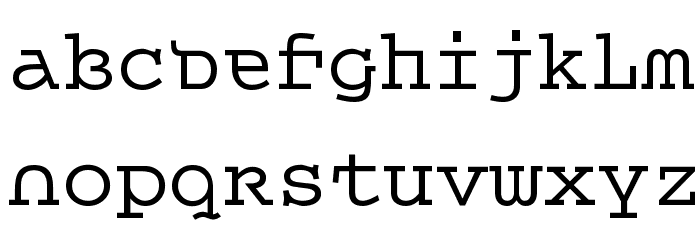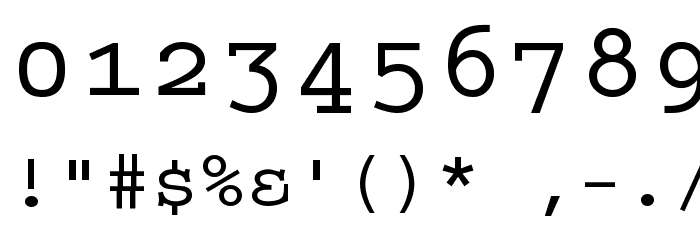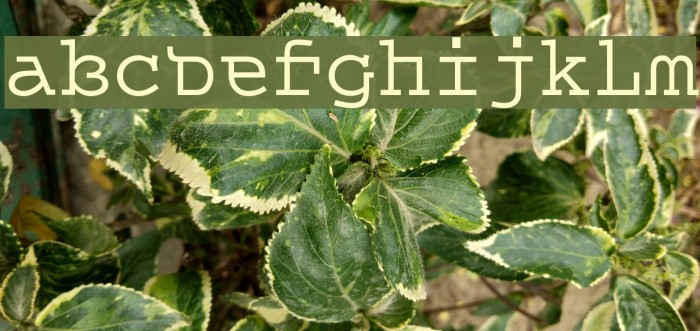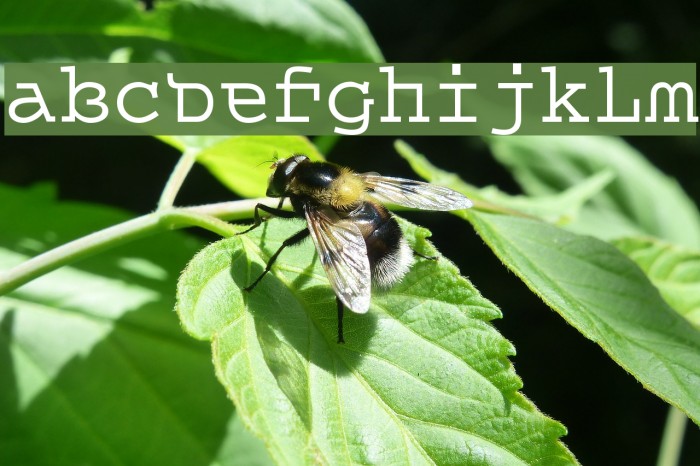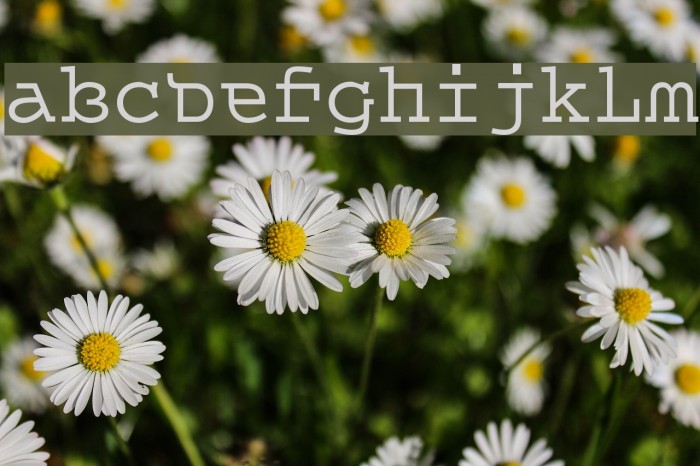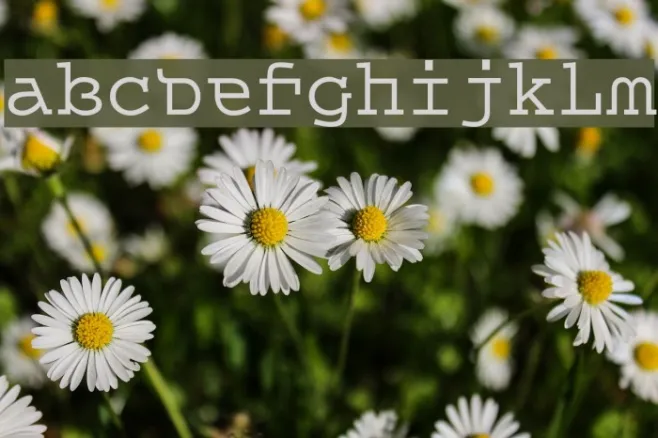
Queer Theory Font
This font features a unique and playful design with a distinct retro vibe. The characters are bold and rounded, with a quirky twist that adds personality to each letter. The uppercase and lowercase letters share a consistent style, with some letters featuring unexpected curves and angles that create a sense of movement and energy. The numerals and special characters maintain this playful aesthetic, making the font versatile for various creative projects. Its bold appearance ensures readability while maintaining a fun and engaging look.
A bold, playful font with a retro vibe and quirky character designs.
- Proposed Projects: Ideal for branding projects, posters, and creative designs that require a fun and engaging typeface.
- Overall Style: Retro, Playful